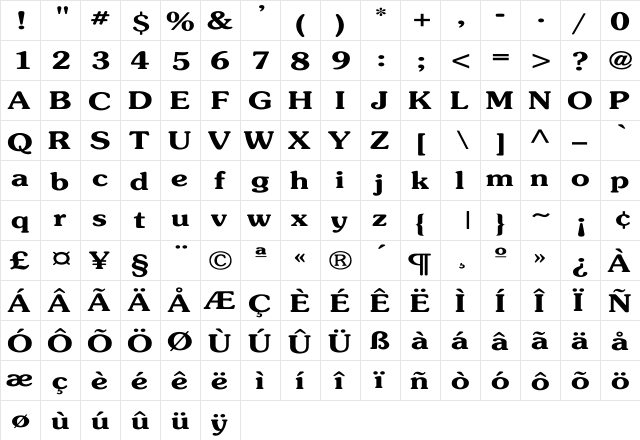
Souvenir-Light-Bold Wd Regular Font Preview
Souvenir-Light-Bold Wd Regular
Souvenir-Light-Bold Wd Regular Font Details
Design Context for Souvenir-Light-Bold Wd Typeface
Souvenir-Light-Bold Wd takes a measured approach to typography — its balanced proportions and neutral character make it a reliable workhorse for both digital and print work. Its bold stroke weight gives it real presence on the page.